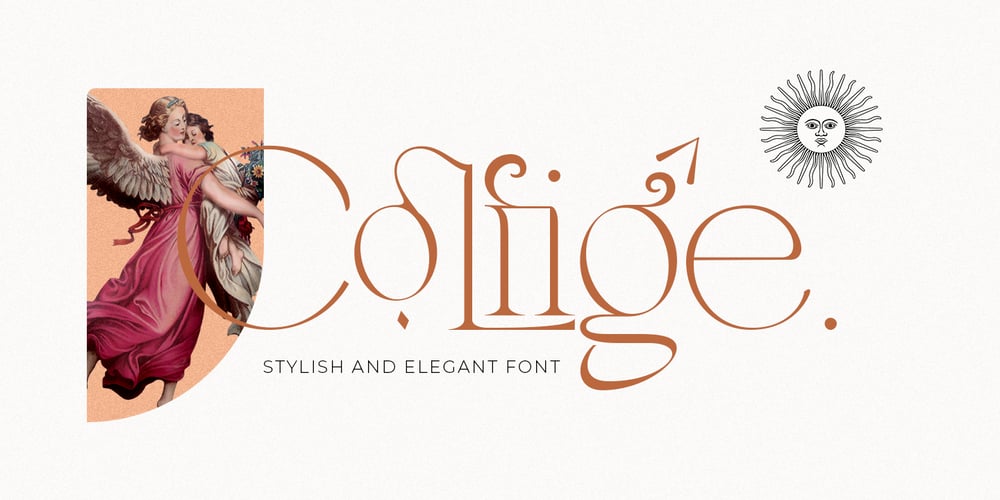
Colfige
Colfige font
Colfige Font Family was designed by Sukjana Almunandar and published by Alcode. Colfige contains 1 styles and family package options. Collge is a serif typeface with ligatures also complete multilingual glyphs. Collge come with Regular style, it will make this typeface can be used in all design projects and works perfectly for pairing with script typeface or handmade fonts, Headlines, Posters, Packaging, T-shirts, Postcards, Invitation, Wedding Sign, Sign Painting, Signboard, and much more.Try Collge, enjoy the richness of OpenType features and let her fun and elegant excitement make you happy and enhance your creativity! You can use this font very easily.